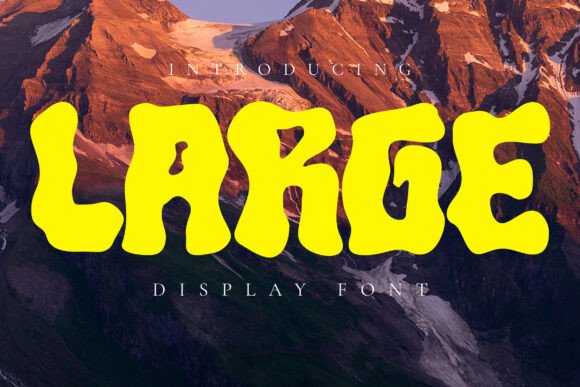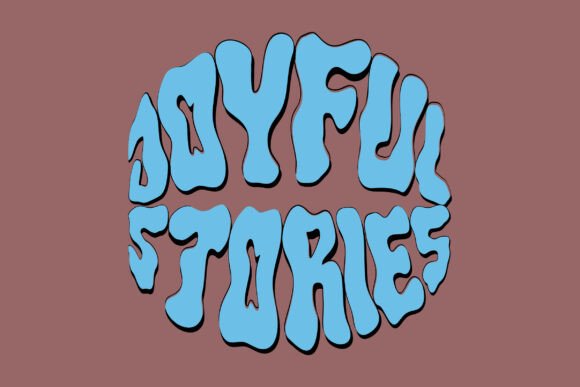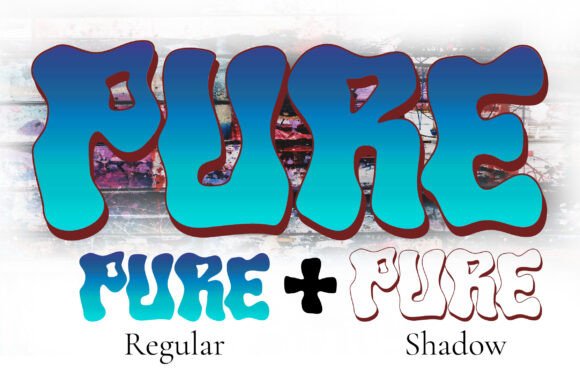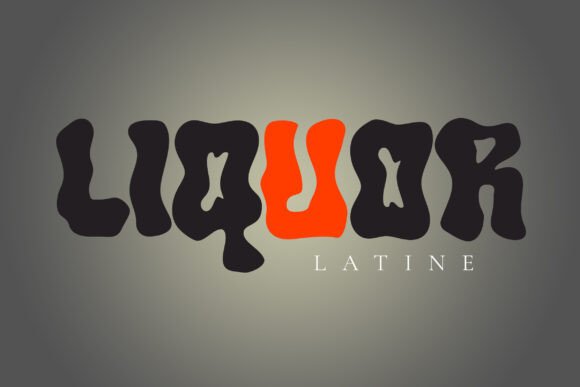
Large Font
About the Large Font
Add a touch of class to your work with the Large Font, a truly exceptional typeface. An exclusive handcrafted display font meticulously designed to breathe life into your creative projects. Large display font, seamlessly fusing style with versatility. Ideal for fashioning statement-making t-shirts. Its unique flair also excels when it comes to branding.
Large Font’s bold, confident personality makes it perfect for headlines, posters, and logos where a strong visual impact is desired. It’s equally effective in short-form branding applications, such as packaging or social media graphics. However, its weight and decorative elements make it unsuitable for body text or UI elements requiring high readability.
Consider pairing Large Font with a clean sans-serif like Open Sans for a modern contrast, or a more traditional serif like Garamond for a sophisticated, classic feel. For a playful touch, a handwritten script font could complement its strong structure.
The font’s assertive character lends itself well to brands projecting strength, luxury, or a modern aesthetic. Avoid using it for projects requiring subtlety or a delicate, minimal approach.